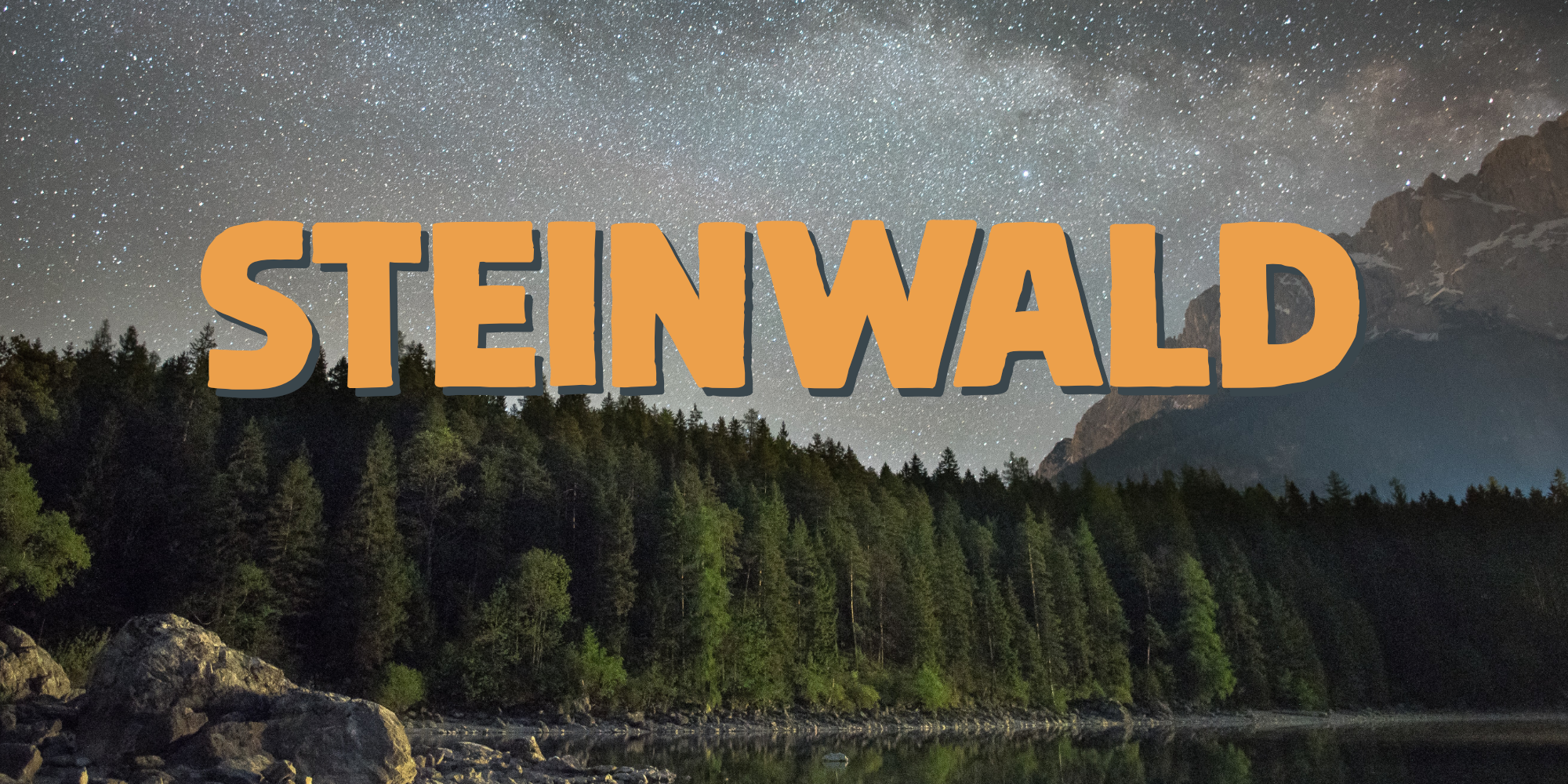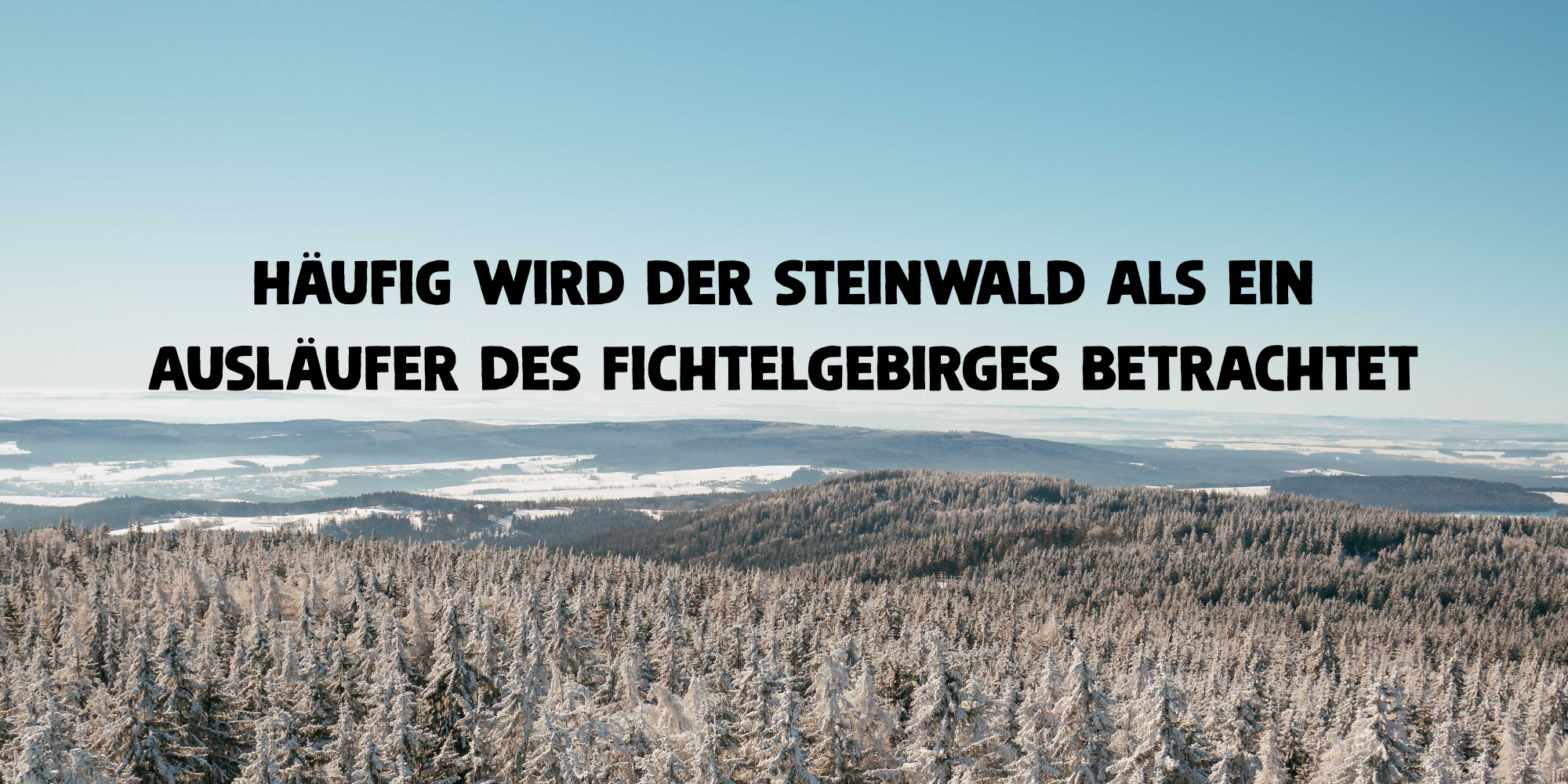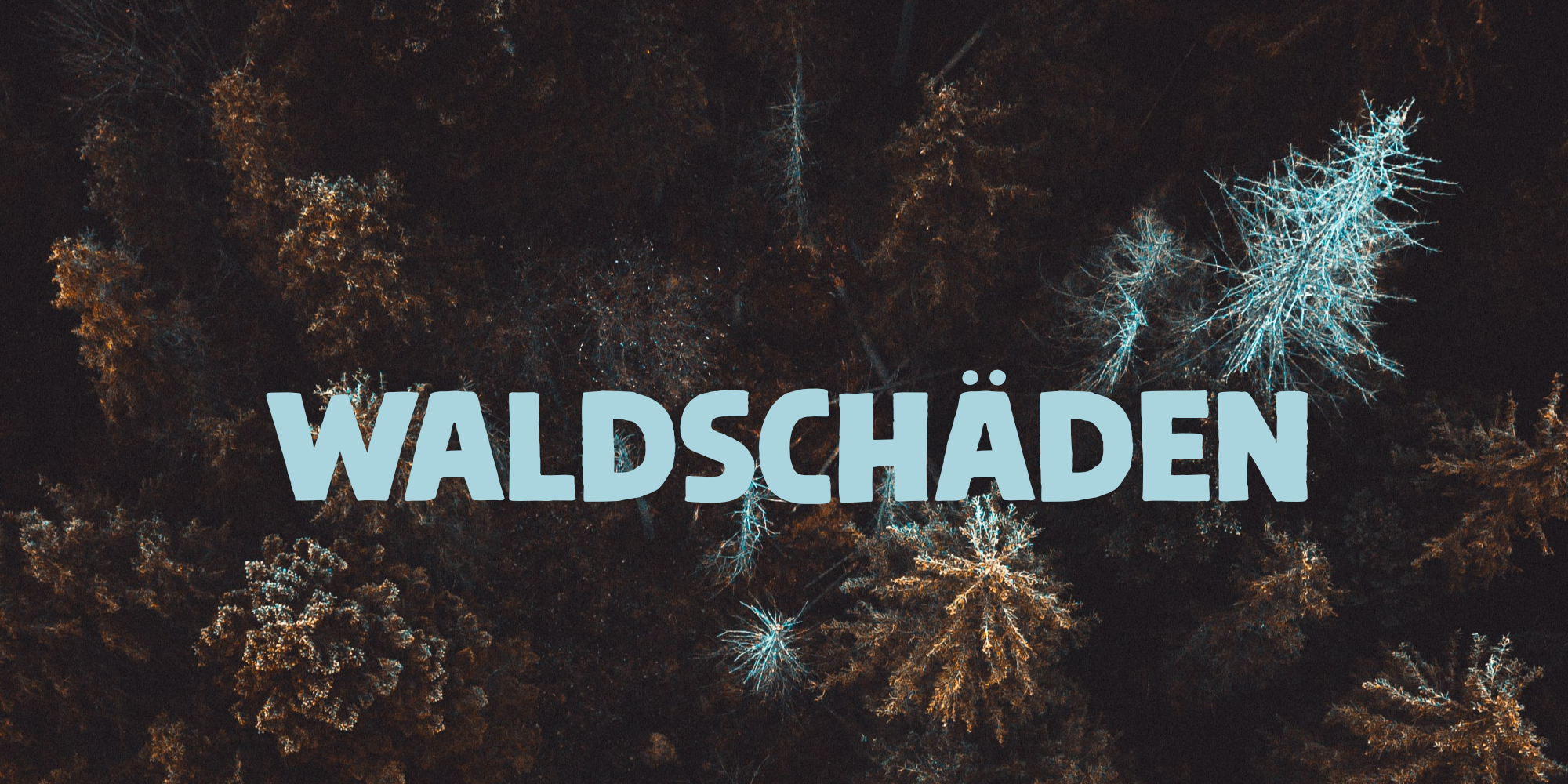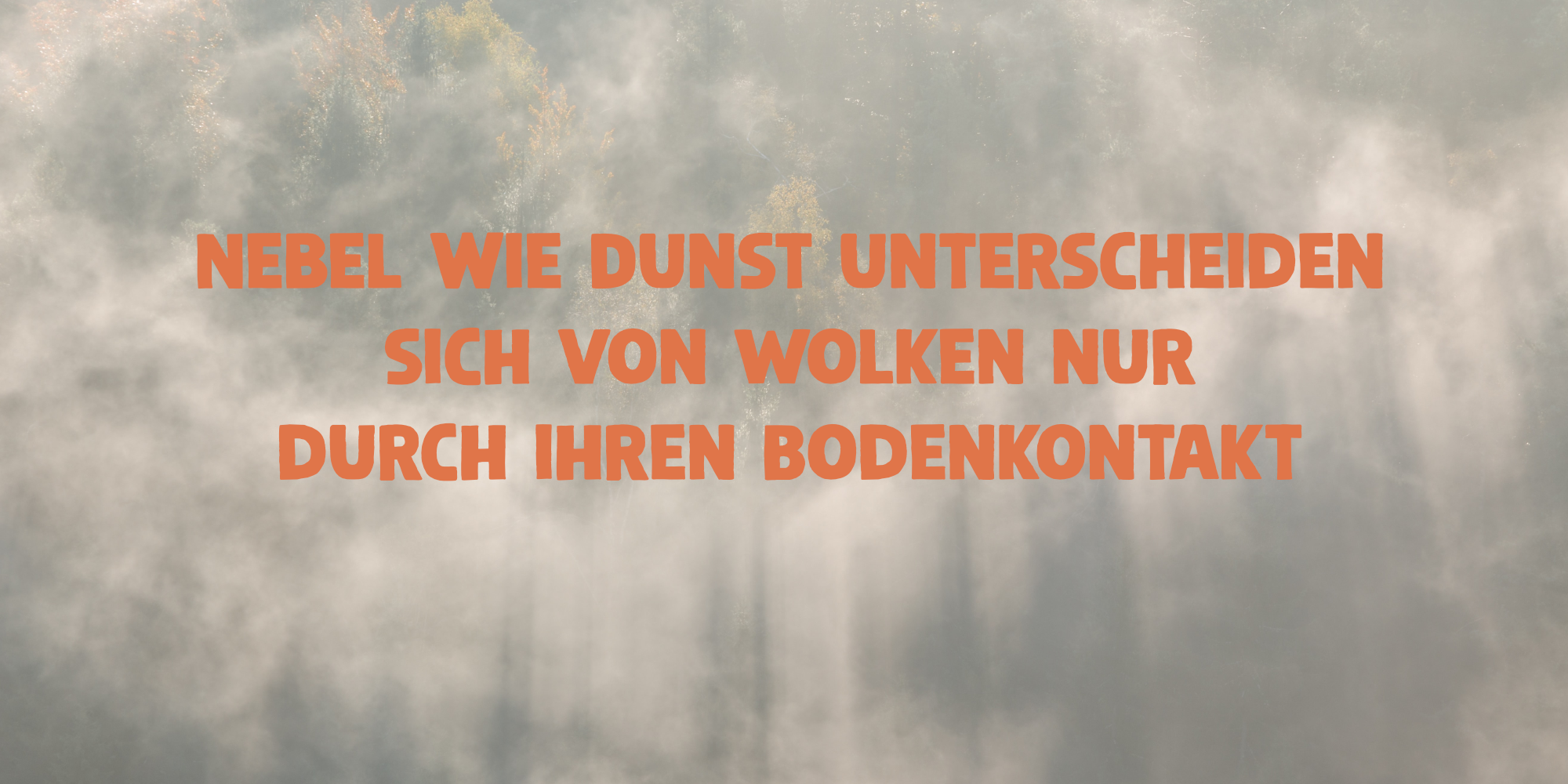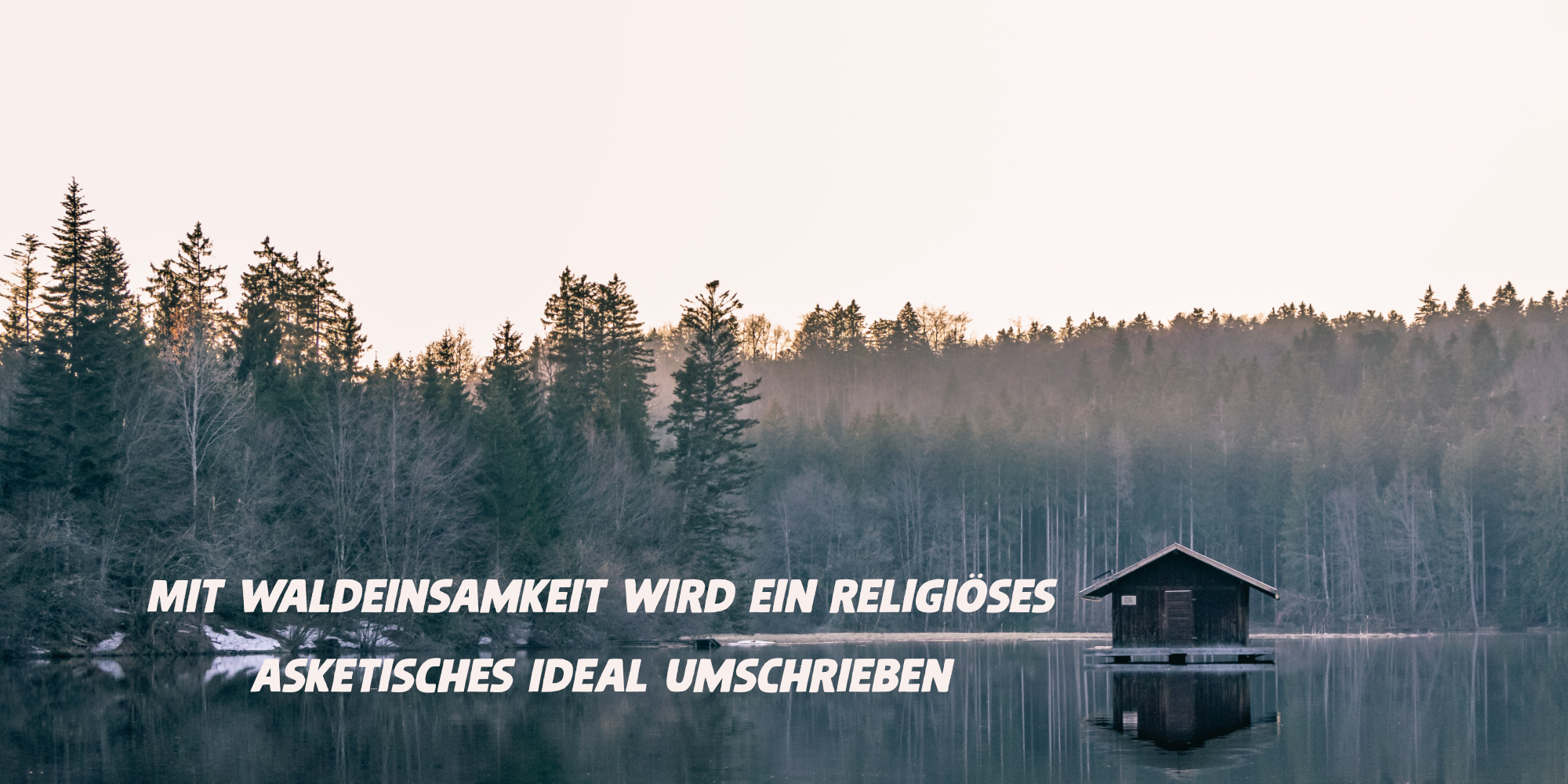
Steinwald (2 fonts)
Steinwald was made by hand and cleaned up by computer. It looks quite neat, but its edges are a bit rough, giving it ‘ye olde handmade look’! Use it for your posters, your product packaging and your supermarket signs.
Comes with extensive language support.